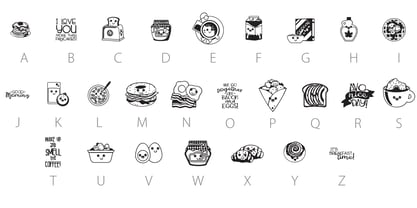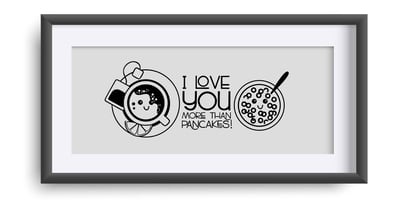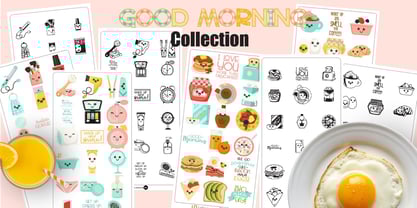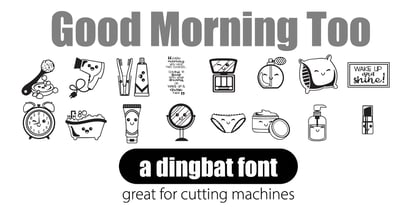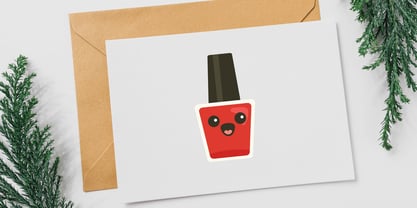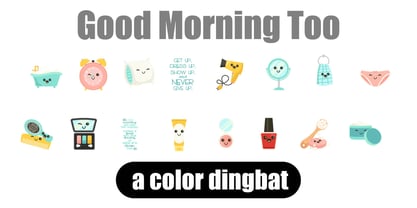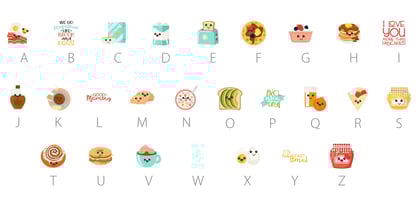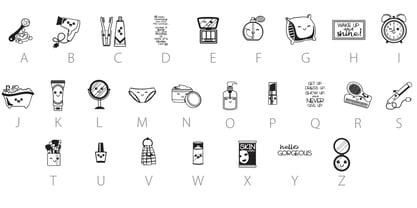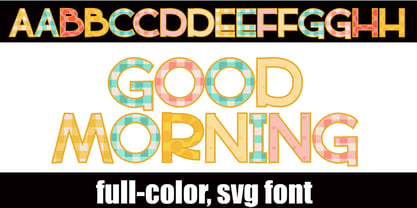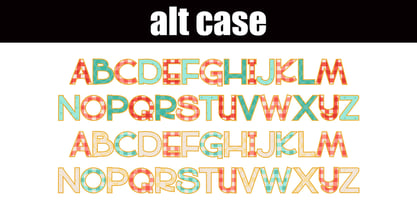
Good Morning
by Illustration Ink
Good Morning! This font bundle features adorable morning foods and all the elements you need for your morning routine. This bundle has 1 full-color font, with an alt case of additional colors of each letter that you can access through your system's glyph map, 2 full-color dingbats, and 2 regular dingbats.
Full-color SVG fonts are the perfect way to add a touch of personality to your designs. With a full range of colors and styles to choose from, you can create anything from simple text logos to complex illustrations. Plus, SVG fonts are vector-based, so they can be scaled to any size without losing quality.
Here are some of the benefits of using full-color SVG fonts:
• They are versatile and can be used for a variety of projects, from logos and branding to web design and print.
• They are scalable, so you can use them for any size project.
• They are high quality and will not lose their resolution when scaled.
If you are looking for a versatile, high-quality font that can be used for a variety of projects, then a full-color SVG font is the perfect choice for you.